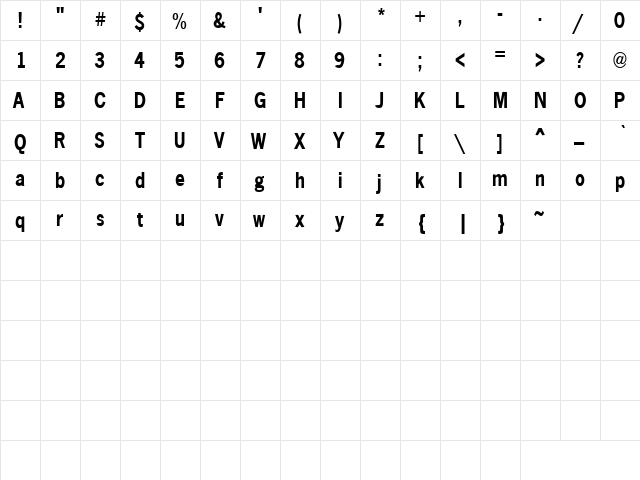
Breakdown 2 Bold
Design Context for Breakdown 2 Typeface
Breakdown 2 takes a measured approach to typography — its balanced proportions and neutral character make it a reliable workhorse for both digital and print work. Its bold stroke weight gives it real presence on the page.